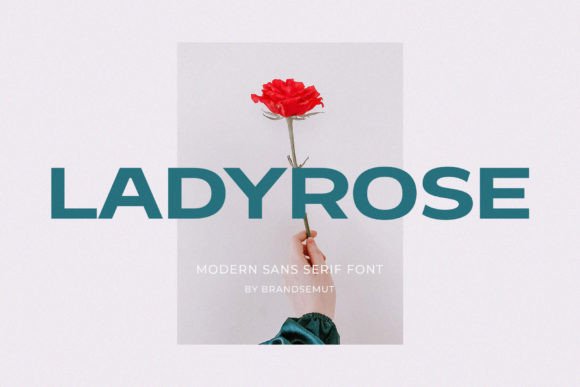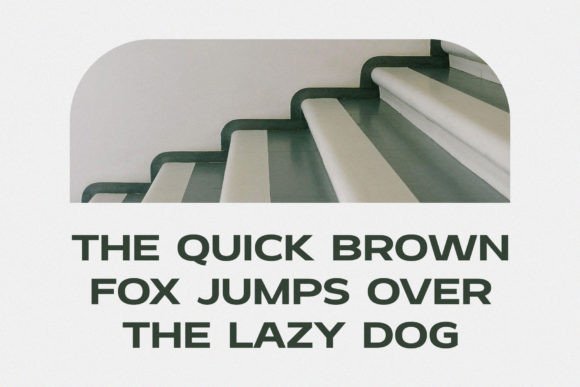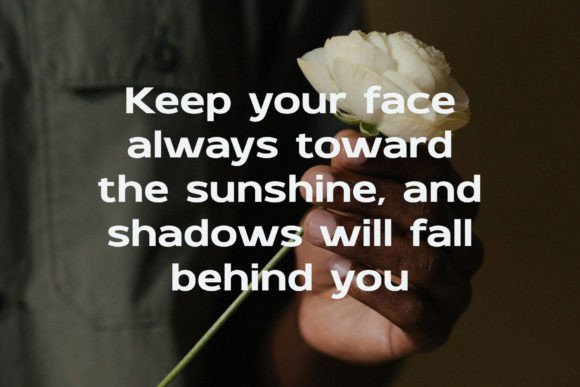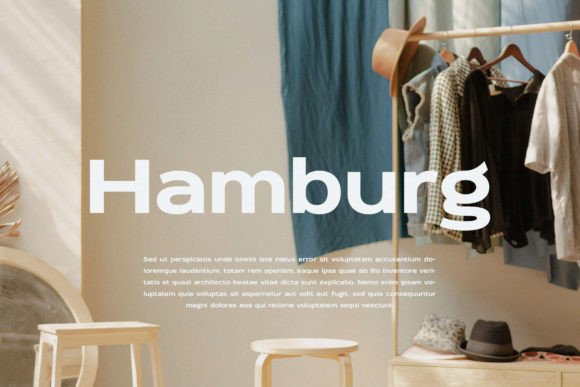
Ladyrose Font: Modern Sans Serif for Elegant Logo Design & Branding
About the Ladyrose Font
Presenting Ladyrose Font, a unique and stylish typeface that will make your work stand out. Introducing Ladyrose Modern Sans Serif
Ladyrose is a modern and simple font, best used as a display for headings, logos, branding, magazines, product packaging, and invitations. Ladyrose comes with clean lines and smooth curves giving any project an extra touch of class.
Its elegant, yet approachable personality makes Ladyrose ideal for branding projects requiring a touch of sophistication without sacrificing readability in shorter text settings. It excels in headlines, logos, and short-form marketing materials, adding a modern flair to packaging and invitations. However, its delicate curves are less suitable for body text or lengthy paragraphs.
Consider pairing Ladyrose with a clean sans-serif like Lato for a balanced and contemporary feel, or a classic serif like Garamond for a more traditional, yet refined aesthetic. For a bolder contrast, a geometric sans-serif such as Futura could work well, creating a dynamic and memorable combination.
Avoid using Ladyrose in UI contexts or situations requiring extensive body copy; its design prioritizes visual impact over optimal legibility in large blocks of text.
Ladyrose Font Usage Examples
Ladyrose Font Example